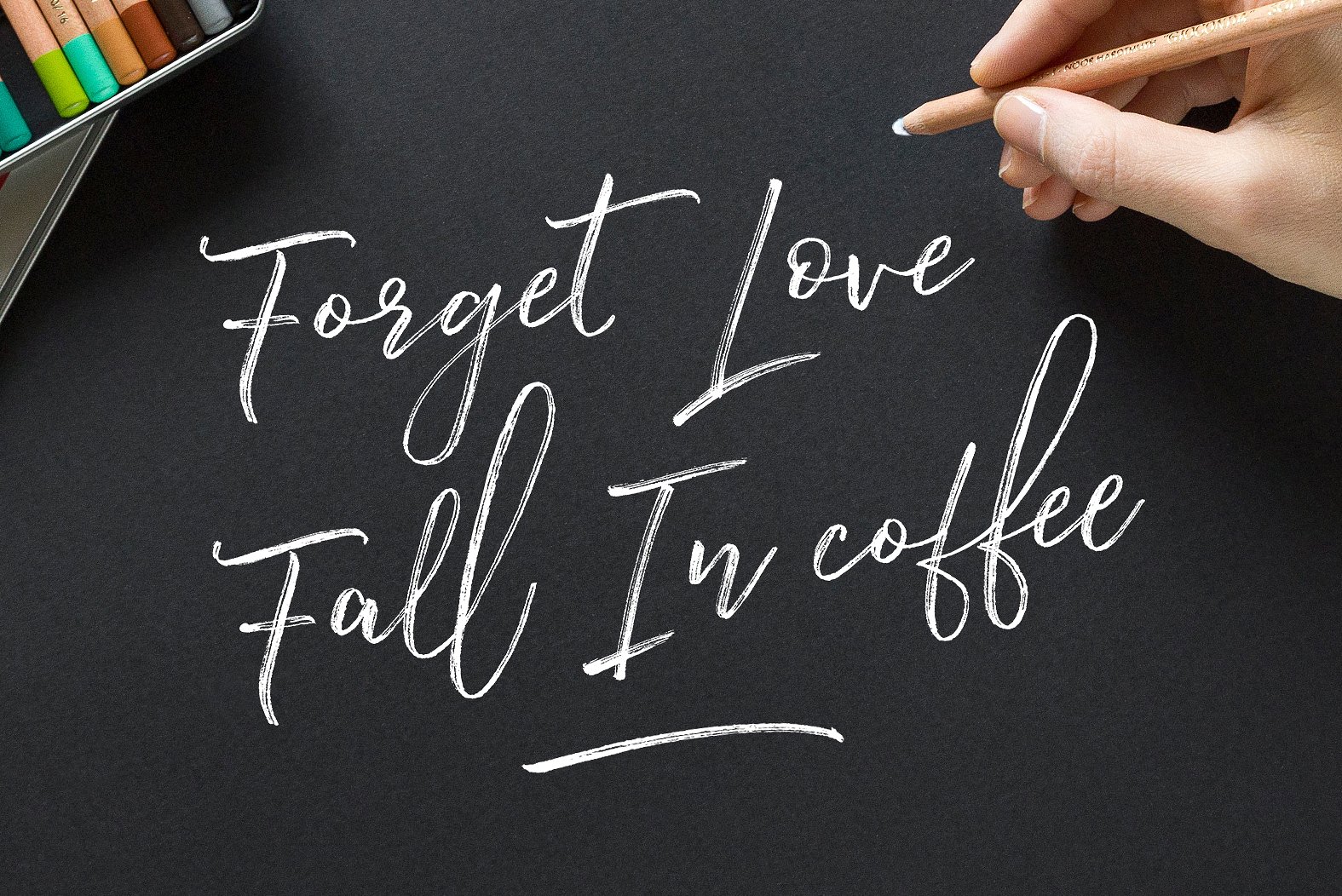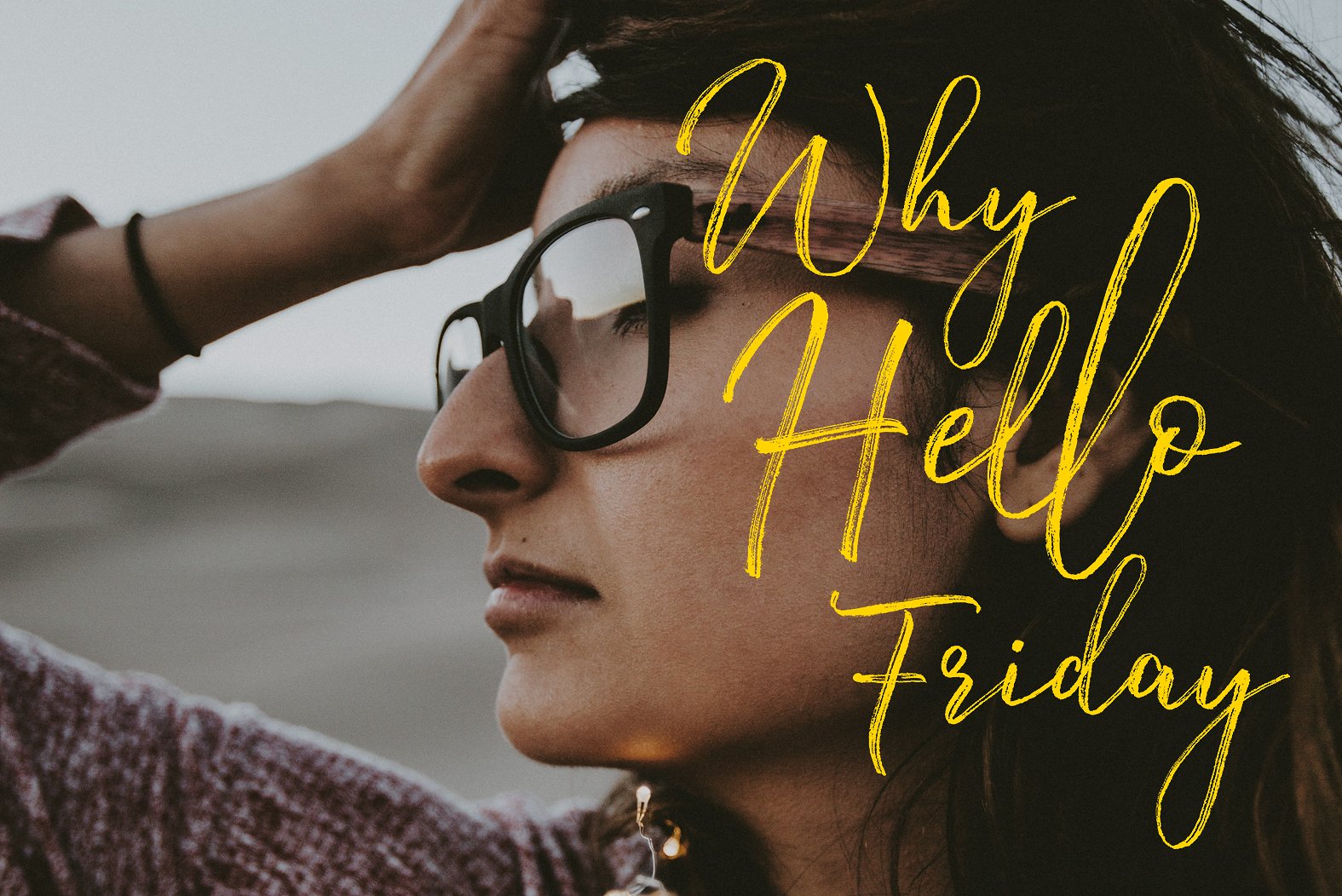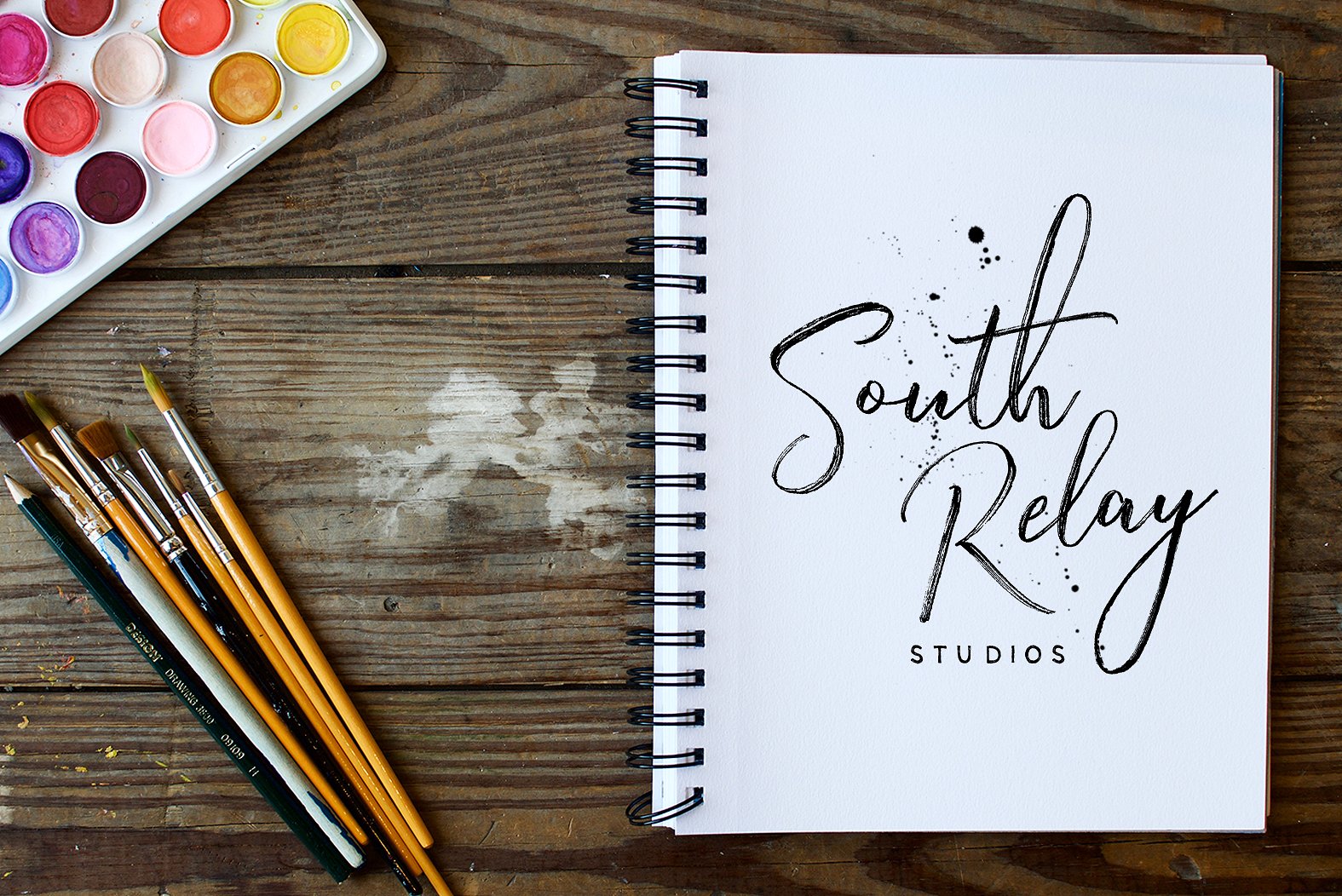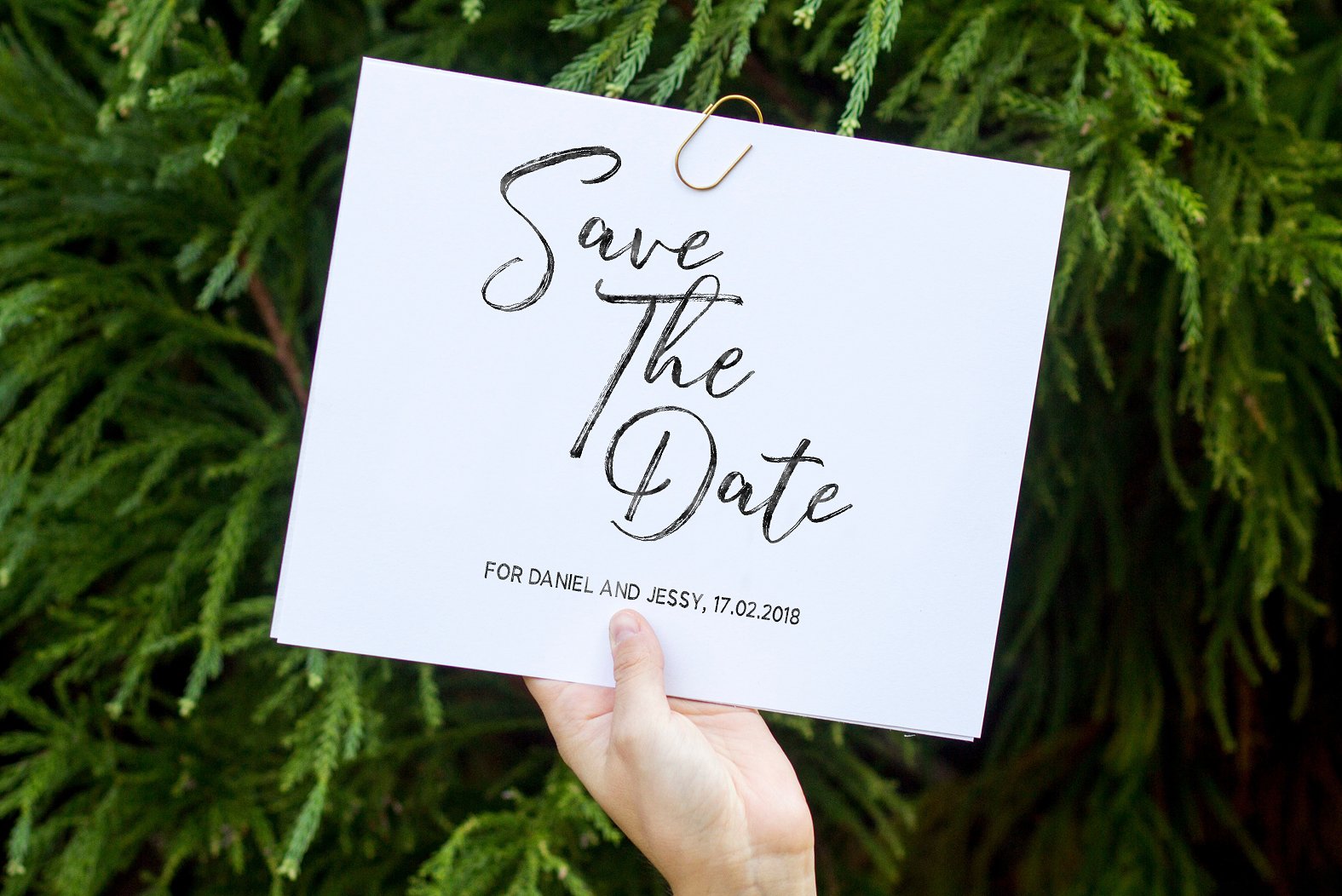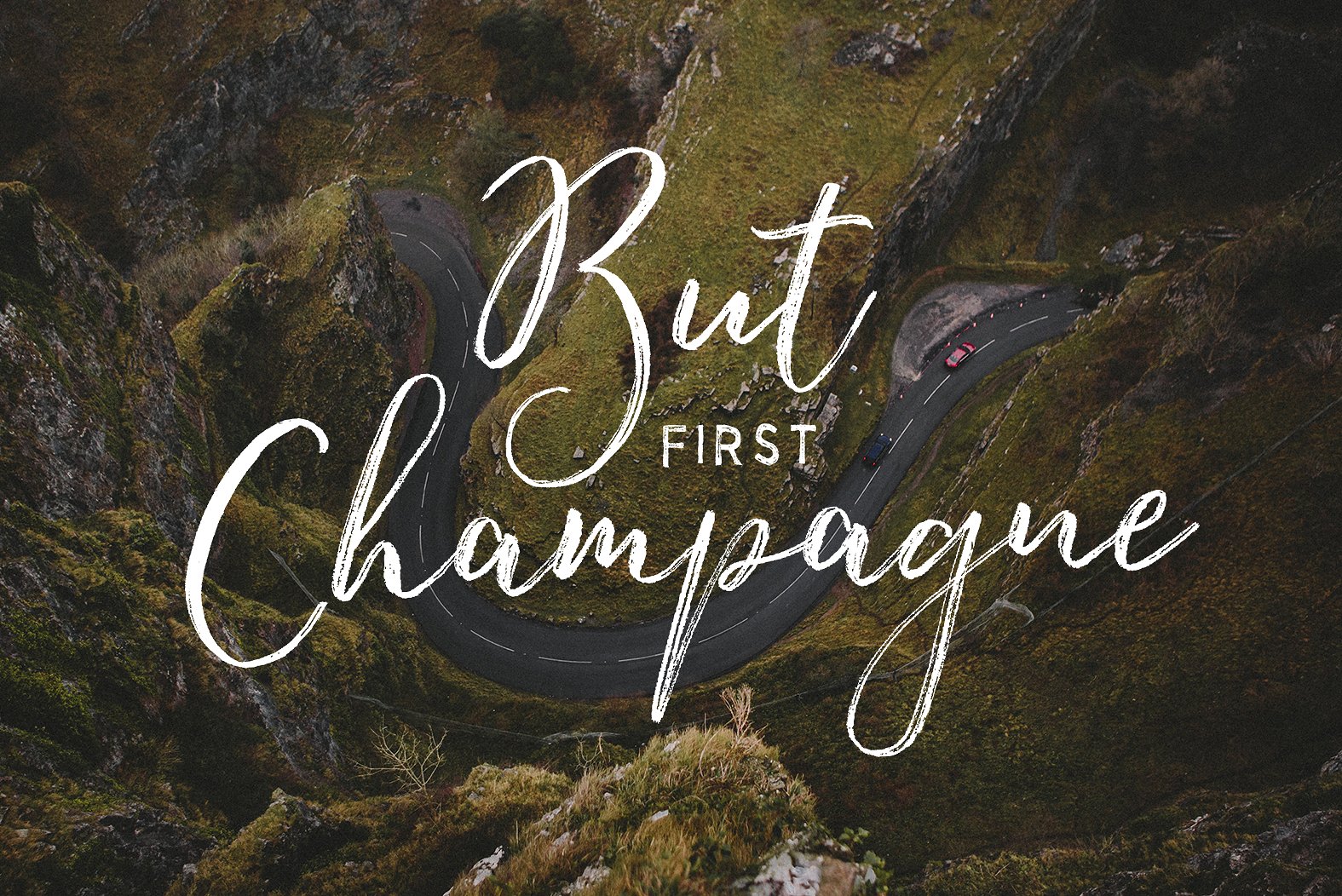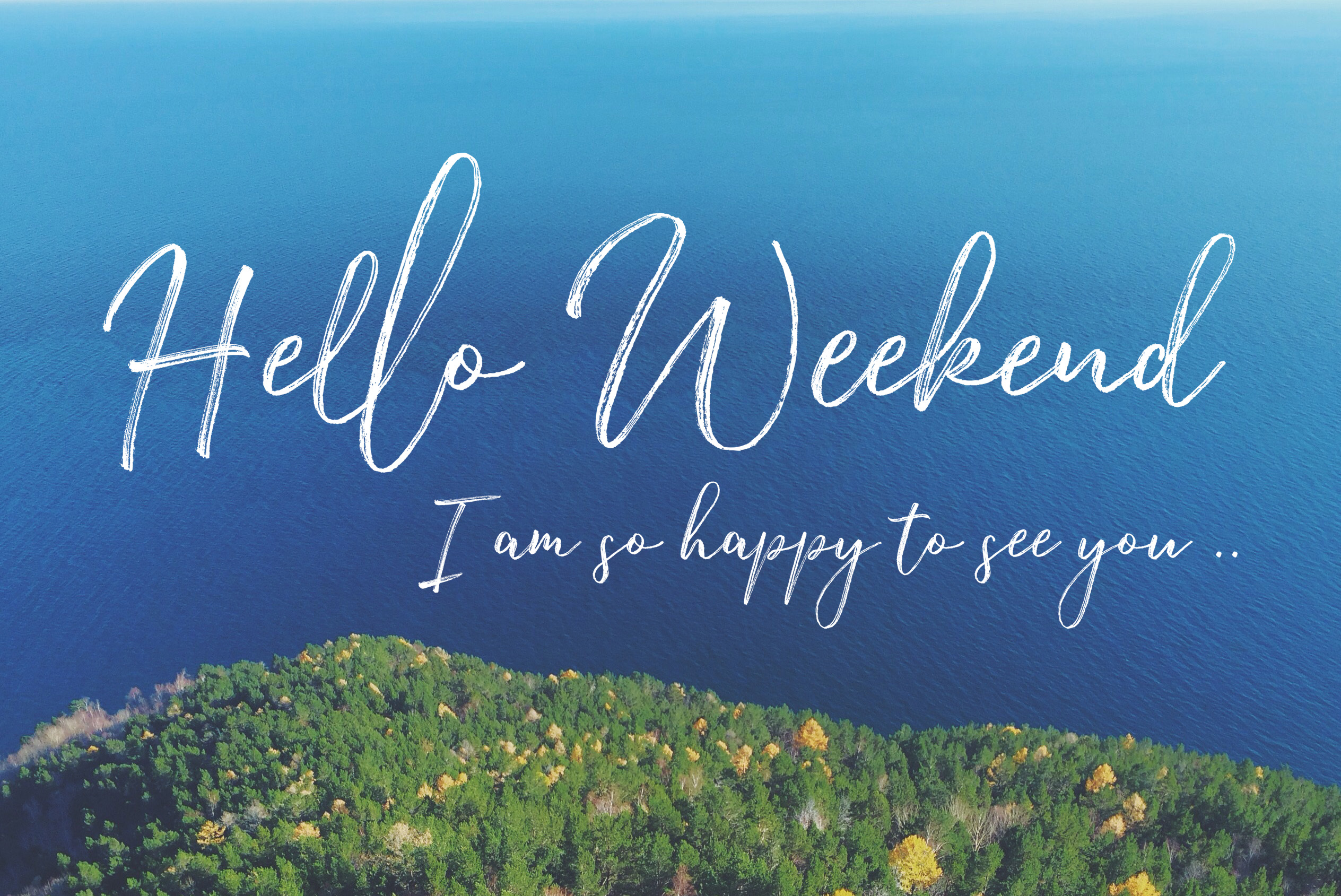
Find Your Voice with Experiment Brush Font
Have you ever stared at a blank canvas, searching for the perfect words to bring your creative vision to life? The blank page can be intimidating, but it’s also an opportunity to experiment and try something new. For designers and artists, this moment of creative uncertainty can be a thrilling challenge.
That’s where the Experiment Brush Font comes in – a script font that exudes confidence and warmth. With its natural flow and brush-stroked design, this font is the perfect companion for communicating your unique voice and style. Whether you’re crafting a brand identity or designing a wedding invitation, the Experiment Brush Font is an exceptional choice that will add a touch of personality to your work.
As a valuable asset for designers, the Experiment Brush Font offers a versatile and expressive tool for bringing your ideas to life. With its perfect blend of sweetness and sophistication, this font is sure to elevate your designs and leave a lasting impression.
Experiment Brush Font Key Features
- Font Family: Experiment Brush Font is a unique, hand-drawn font that mimics the look of brush strokes.
- Character Set: The font includes a wide range of characters, including uppercase and lowercase letters, numbers, and punctuation marks.
- Unique Characteristics: Experiment Brush Font features irregular brush strokes, subtle texture, and a hand-crafted feel that adds a touch of personality to any design.
Experiment Brush Font Review
Overall, I think the Experiment Brush Font is a fun and unique addition to any designer’s toolkit. ✨ The font’s hand-drawn, brush-like style gives it a personal touch that’s perfect for creative projects.
The Experiment Brush Font is highly customizable, allowing designers to adjust the font’s style, size, and color to fit their needs. ✨ It’s also highly legible, making it suitable for a wide range of applications, from body text to headings.
However, there are a few limitations to keep in mind. ⚠️ One of the main issues is that the font can be a bit too playful for some projects. It’s not ideal for formal or corporate designs, where a more serious tone is required.
Additionally, the font’s unique style can sometimes make it difficult to read at small sizes. ⚠️ Designers will need to be mindful of font sizes and line heights to ensure that the text remains clear and readable.
- Pros: Highly customizable, legible, and suitable for creative projects.
- Cons: May not be suitable for formal or corporate designs, can be difficult to read at small sizes.
Overall, I think the Experiment Brush Font is a great choice for designers who want to add some personality to their projects. Just be mindful of its limitations and use it in the right context.
The Experiment Brush Font is ideal for:
– Creating eye-catching headings and titles
– Adding a touch of whimsy to designs and documents
– Creating a unique and personalized brand identity